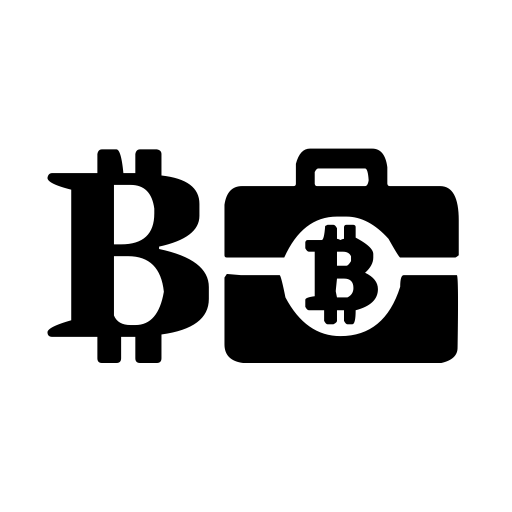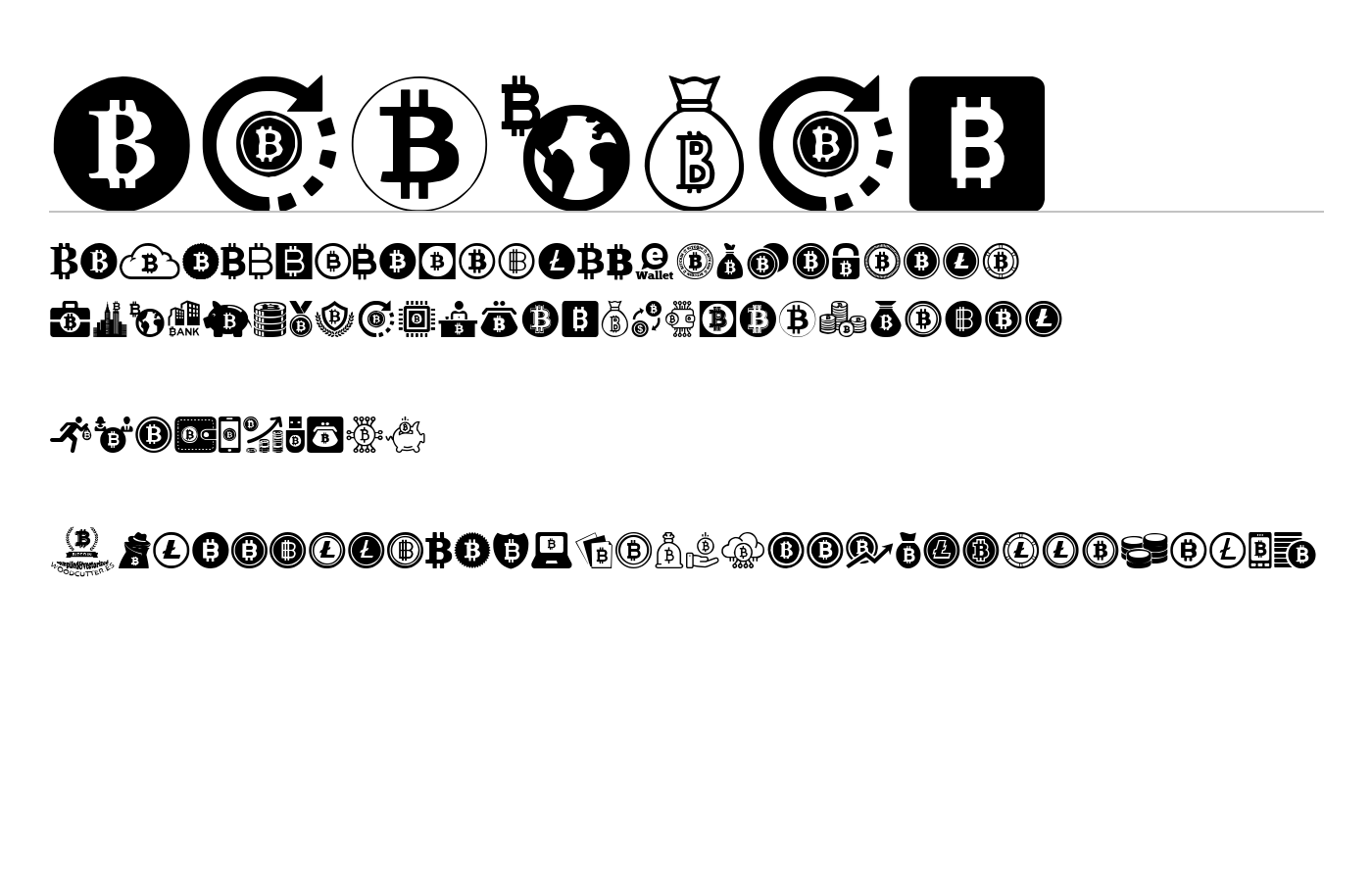
Bitcoin Font is a bold, icon-style typeface featuring strong geometric shapes and a high-contrast design centered around the Bitcoin symbol and related cryptocurrency imagery. Its clean, modern style with solid strokes and simplified shapes makes it ideal for digital finance branding, cryptocurrency websites, and tech-oriented projects where clarity and a futuristic vibe are key. This font works best in logos, app icons, and promotional materials that require a tech-savvy, innovative feel.
Bitcoin Font